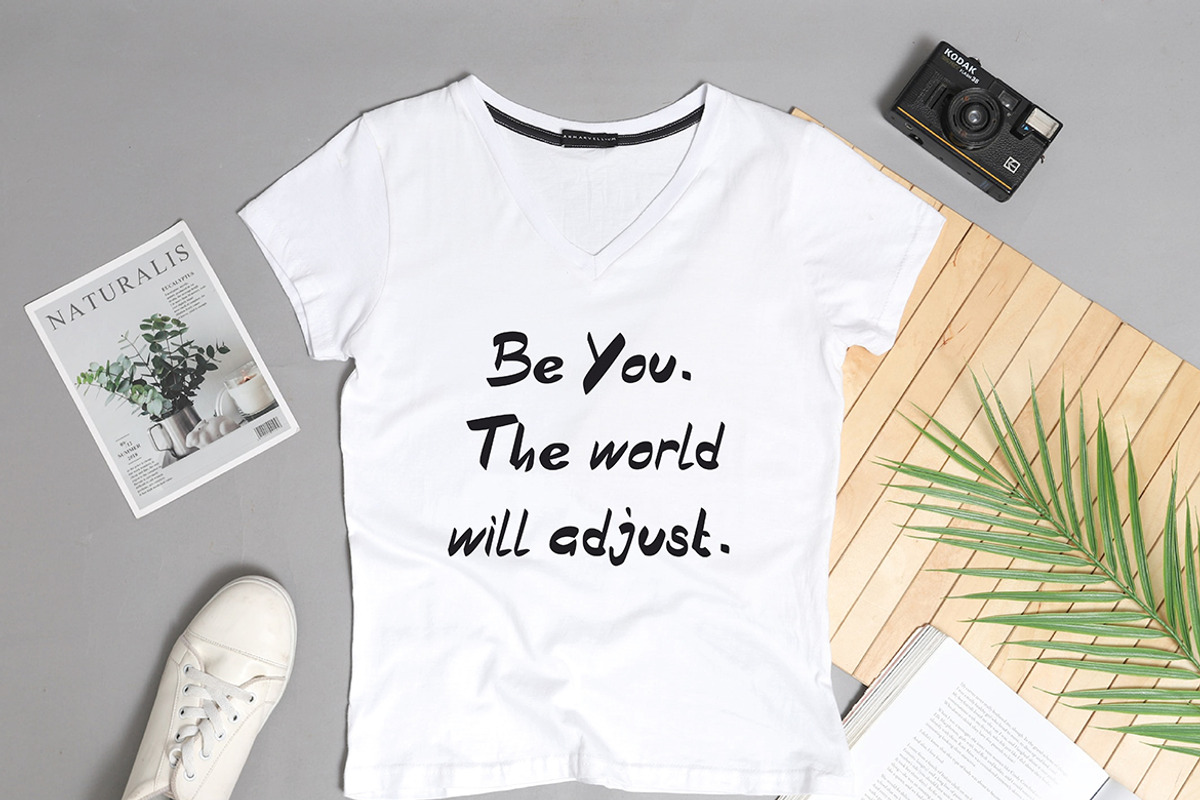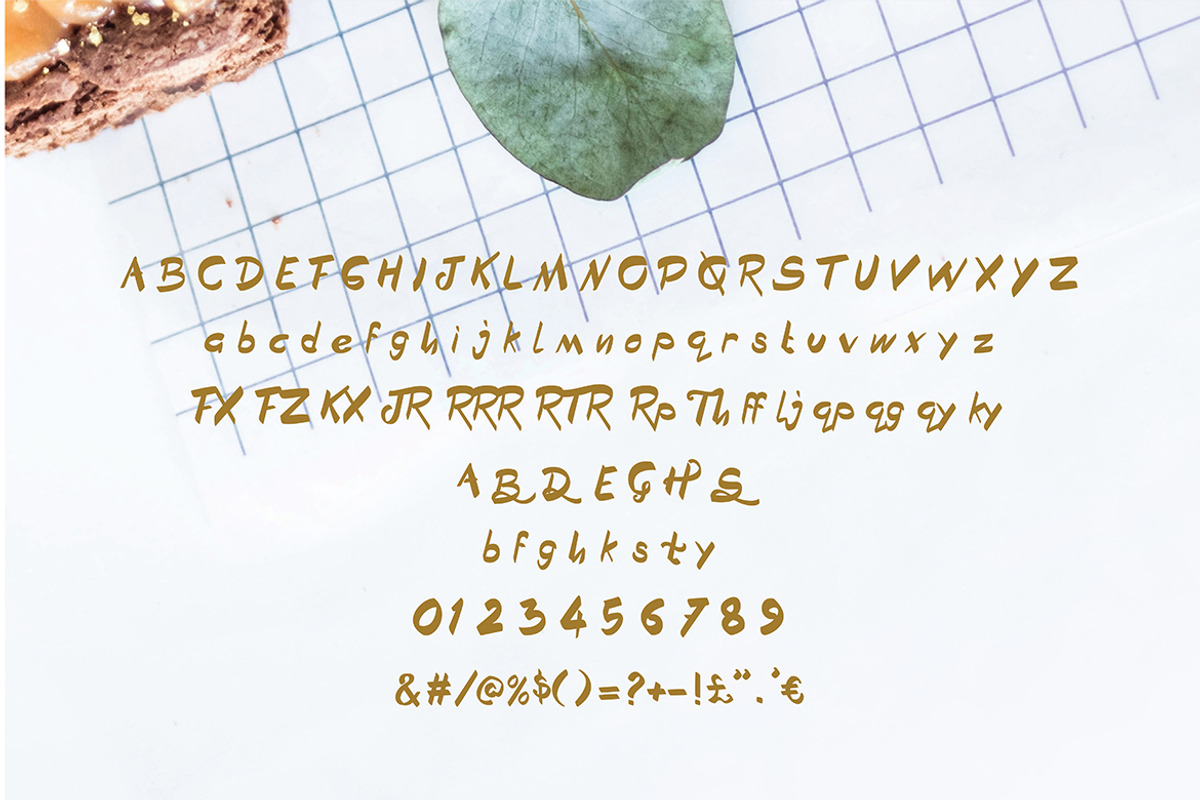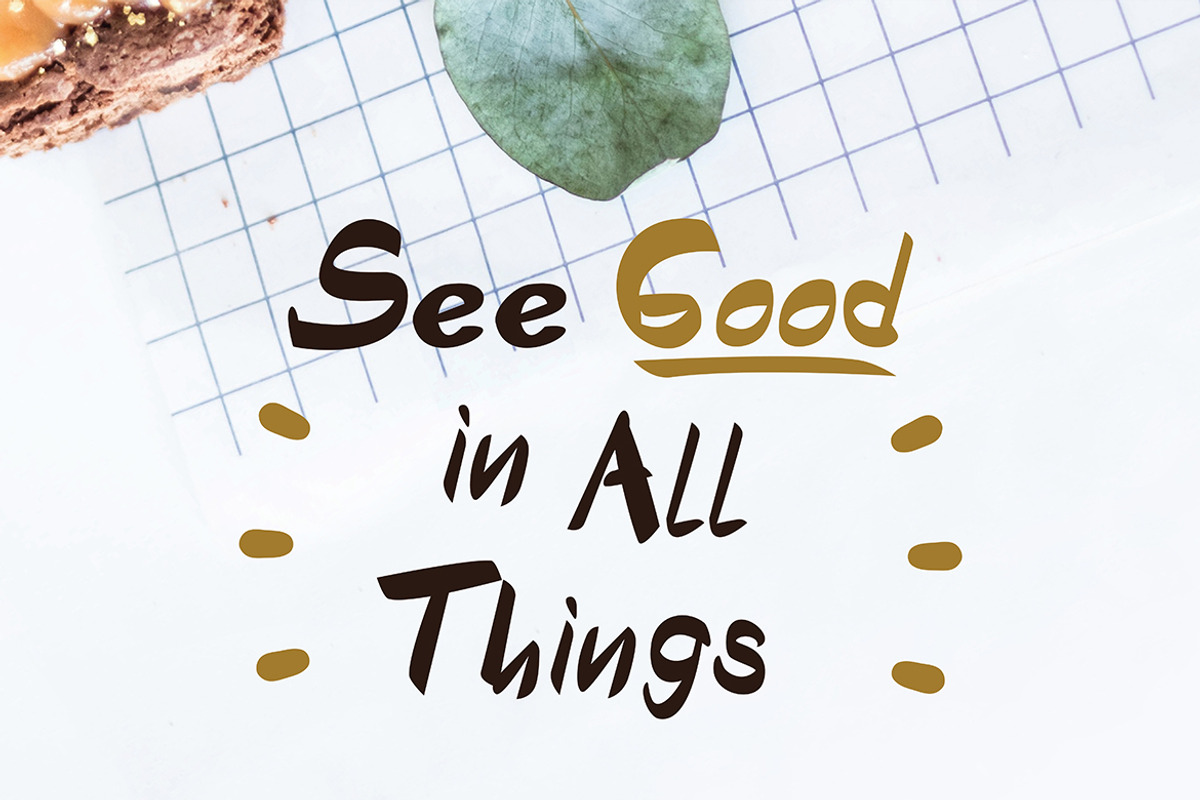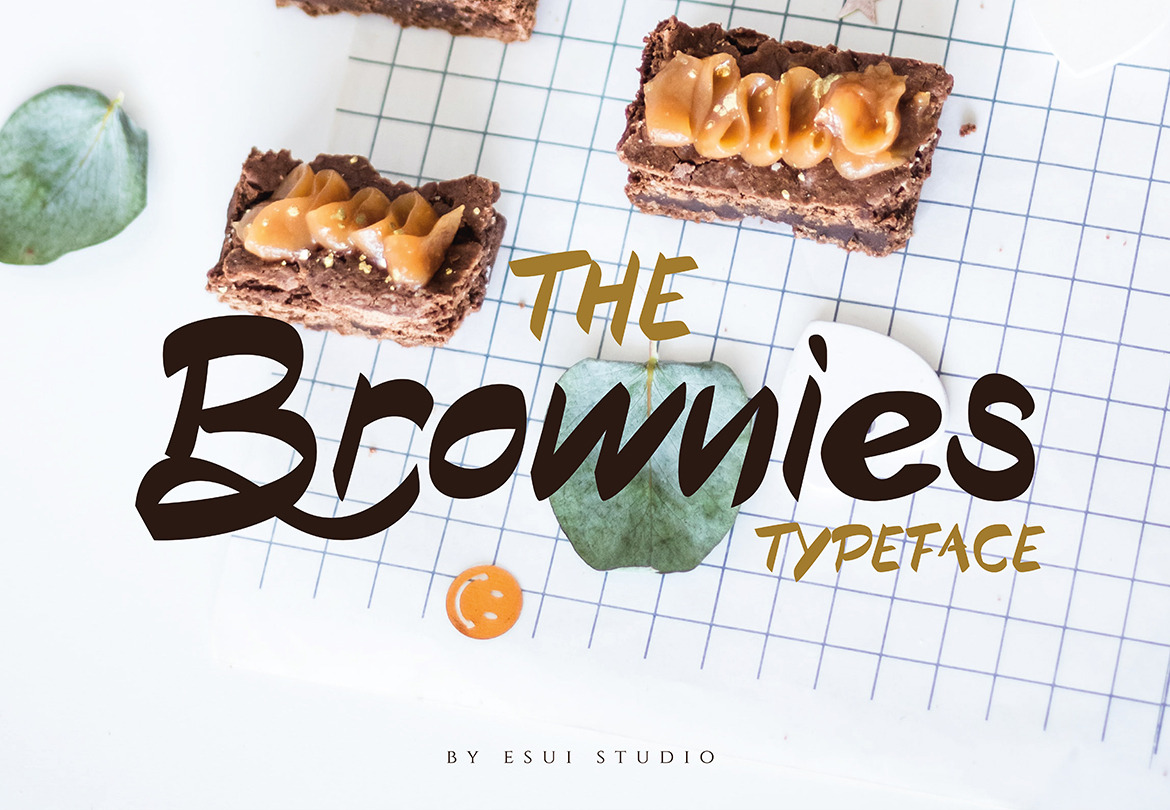
Brownies Typeface
Brownies font is a fun handwritten typeface with complete characters and features. Brownies Typeface can be use for various purposes, such as headings, menus, titles, flyers, tshirts, greeting cards, labels, packagings, posters, badges etc. Features Uppercase, Lowercase, Ligatures, Numeral, Punctuation, Stylistic Alternates.